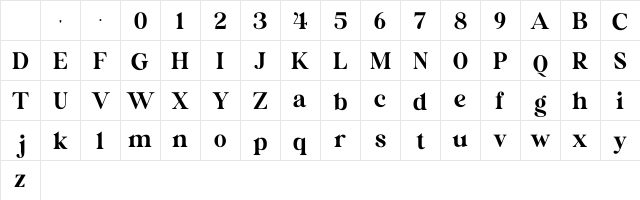
Britania Ligatura Regular
Design Context for Britania Ligatura
Britania Ligatura is a composed and adaptable typeface that performs quietly and consistently across a wide range of design contexts.